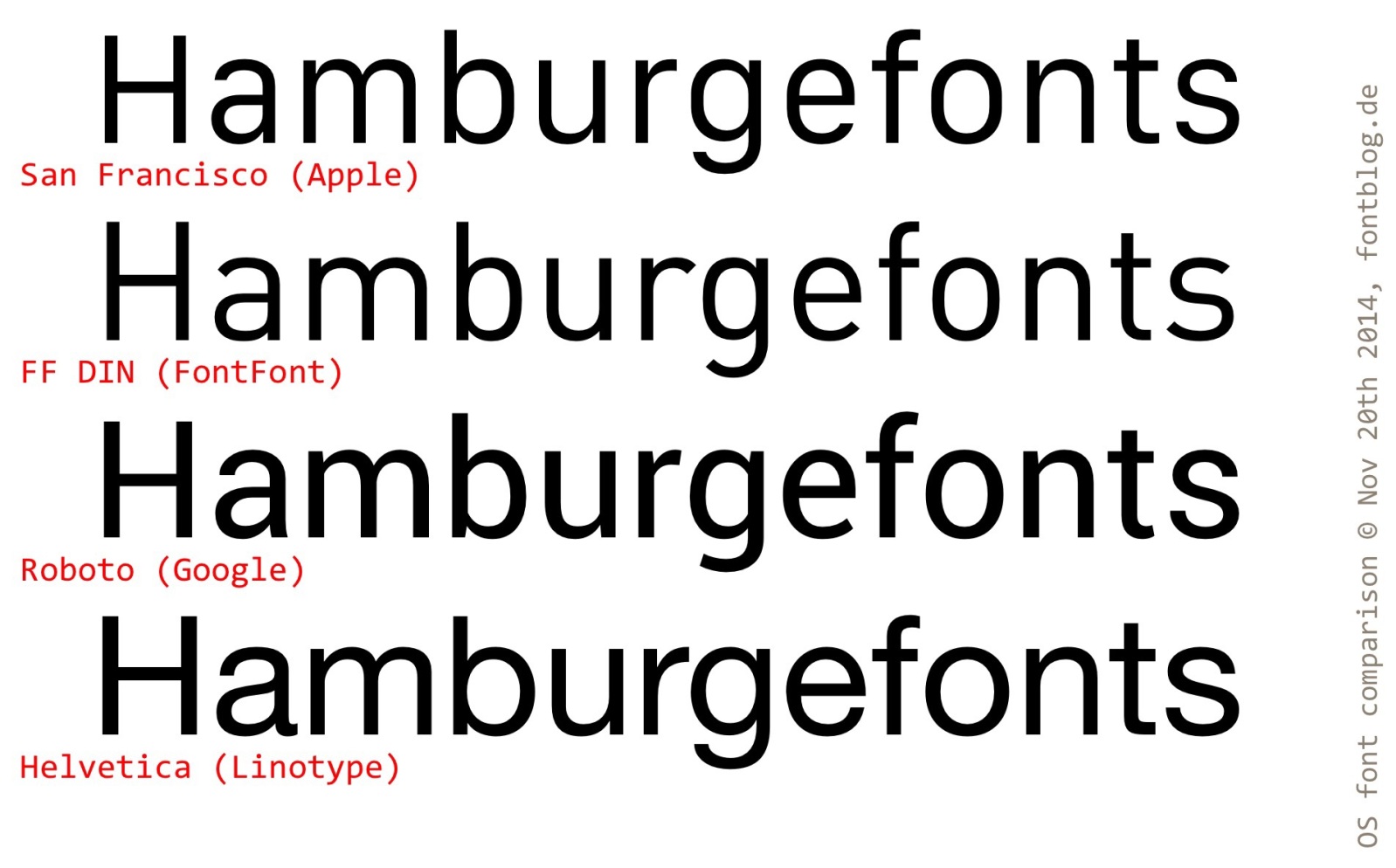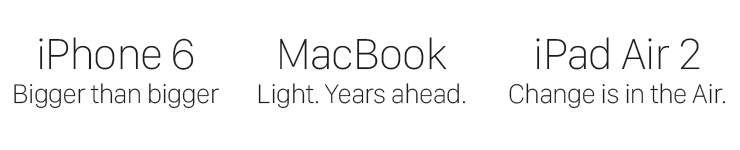
Here's the two side by side. Helvetica's curves are very rounded, and similar for many different characters, too much consistency. SF has less consistency throughout the set to make the individual letters more identifiable. Also, Helvetica has very wide characters, so there's little space between them. SF has narrow characters, and can have a little more space between them even though the word is the same width. When the letters are stacked too close together it could be harder to read.
Imagining them replacing Myriad... I wonder if they will. I'm expecting it. All the branding and packaging for the watch uses SF, and it's obvious that things come first to the new things and them make their way to the rest of the products. It'd be a big step to change the company font though. The website changed the day Yosemite was revealed, so maybe the font on the website will change as everything else changes to SF.
I hope this is true. Helvetica is a horrible font that should never have been used for operating systems' UI due to its poor readability. The Apple Watch font looks much nicer.
Helvetica is fine, at least as far as sans-serif fonts go for any purpose (I agree that you'd probably not want to use it for a book). Apple's mistake was using the Ultralight weight, which looks sexy but sacrifices readability. Older versions of iOS also used Helvetica--they just used heavier weights that were easier to read, which is why nobody really complained.
I can't decide how I feel about Helvetica in OS X. Lucida Grande was fine, but I don't mind Helvetica since they appear to be using bold (for the app menu) and regular (for the rest of the menu bar and most of the UI) weights primarily. Supposedly it also looks better than Lucida Grande on a retina display, though I can't imagine either is bad.
I don't think I'd like San Francisco on a desktop, however. It is a little condensed because it was designed for a small screen, and I don't think it scales up quite as beautifully as the other two fonts, though its light weights seem easier to read to me. (I think there might be a spacing issue with the screenshot posted earlier--I don't usually see SF's lowercase letters that far apart compared to Helvetica's, which I do think enhances SF's readability.)
As long as one can read it easily I don't care. The font currently on IOS 8 is the best to date from my experience. (my poor failing eyes and all)
A selection of fonts would be the way to go though. And being able to make them bold and bigger currently has helped as well. :)
Imagining them replacing Myriad... I wonder if they will. I'm expecting it. All the branding and packaging for the watch uses SF, and it's obvious that things come first to the new things and them make their way to the rest of the products. It'd be a big step to change the company font though. The website changed the day Yosemite was revealed, so maybe the font on the website will change as everything else changes to SF.
Font nerds are weird. I'm looking at the fonts switch back and forth in your post, and I'm thinking: Really?! People are upset at this tiny change? If I hadn't read this article I would never have noticed.
I like it.
I like Helvetica Neue as a font but I also miss Lucida Grande. It seems SF has better readability then HN but is more stylish then LG.
Font nerds are weird. I'm looking at the fonts switch back and forth in your post, and I'm thinking: Really?! People are upset at this tiny change? If I hadn't read this article I would never have noticed.
it's a macrumors news thread, some people would still be upset if Apple released a time travel device.
I was in a classroom in 2011 and I booted up my macbook in a room full of PC users. Someone commented how nice it was to hear the Apple chime and a few others joined in in agreement.
Part of what made Apple great was the consistent experience, the tech improved, the interface improved, but the look and feel stayed the same as much as possible without hurting innovation. The Macs had a refined feel and for decades, everyone associated that noise with their great apple experiences.
At the same time, MS would change all their sounds and the whole feel of the OS with each version so it was all just so much blah noise.
Now Apple wants to keep changing their look and feel over and over for the sake of change. Even getting rid of the white apple-pulse light just takes away from the premium Apple feel. If they have to change the font for some innovative reason, great…but when they keep changing it just so you always know you're on the NEW ONE, they destroy their own branding and they're just like MS.
Imagining them replacing Myriad... I wonder if they will. I'm expecting it. All the branding and packaging for the watch uses SF, and it's obvious that things come first to the new things and them make their way to the rest of the products. It'd be a big step to change the company font though. The website changed the day Yosemite was revealed, so maybe the font on the website will change as everything else changes to SF.
Ugh. No thanks. The current font is much more elegant.